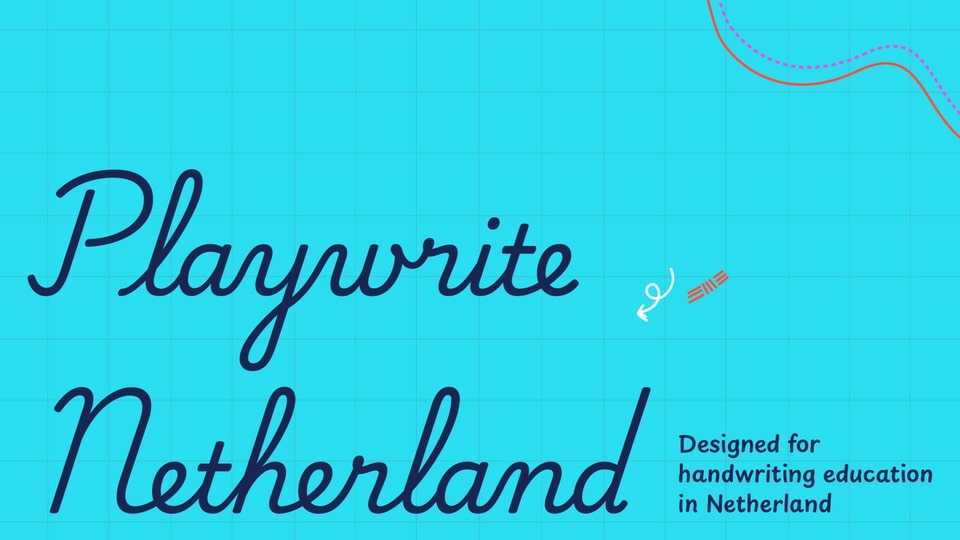
Download Playwrite Netherland font, a typeface that allows the creation of primary school cursive fonts. This slanted fully joined handwriting style includes cursive uppercases and features complex shapes in letters.